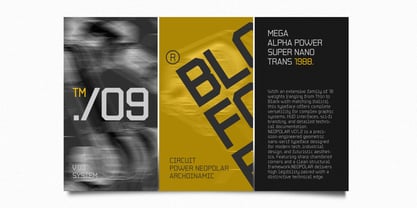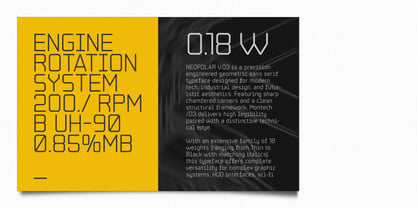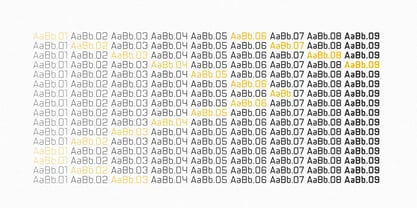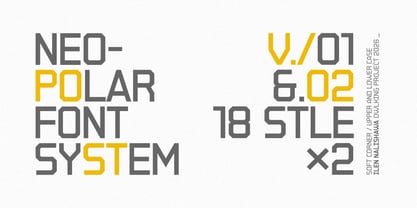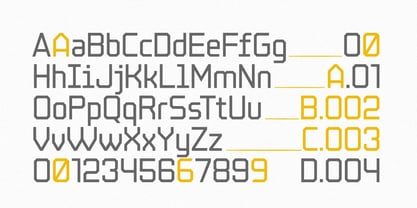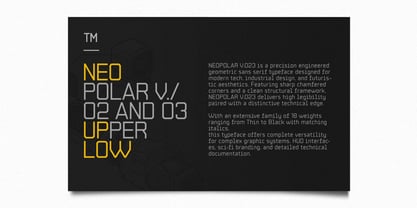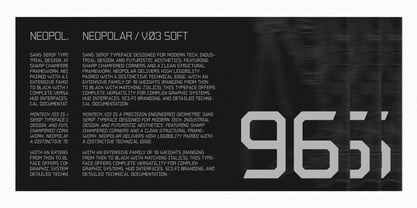
Neopolar V03s
by Owl king project
The Neopolar V03s Font Family was designed by Darhilen and published by Owl king project. Neopolar V03s contains 18 styles and family package options. More about this family
NEOPOLAR is a precision-engineered geometric sans-serif typeface designed for modern tech, industrial design, and futuristic aesthetics. Featuring sharp chamfered corners,
18 versatile weights available and extensive language support.
NEOPOLAR delivers exceptional legibility paired with a distinctive technical edge. Ideal for HUD interfaces, sci-fi branding, and complex graphic systems.
Designers: Darhilen Darhilen
Foundry: Owl king project